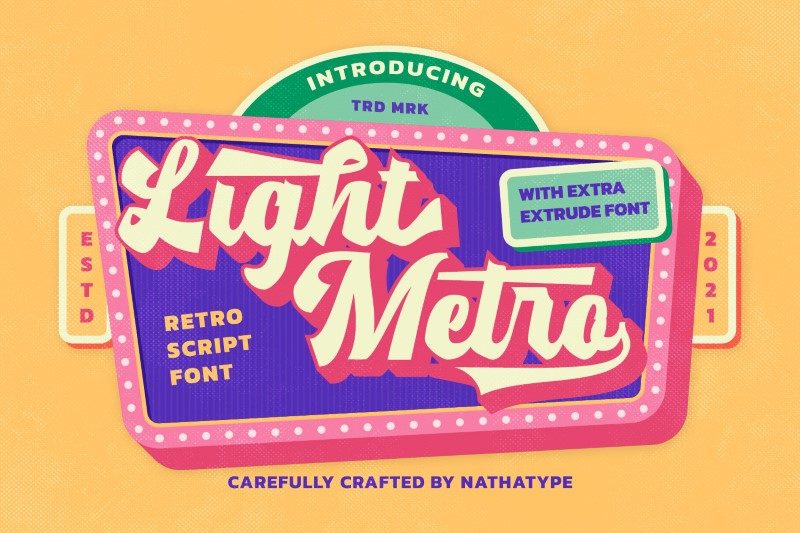
14+ Best Retro Poster Fonts for Eye-Catching Vintage Designs
Somehow, a retro style has an eternal charm in the world of graphic design. Classic colors and the nostalgic atmosphere that it exudes make it a popular choice even in this modern era. Not only from the color and visual composition, but the power of retro style can also be seen through its typography. Utilizing the best retro poster fonts will change the design appearance and make it visually stand out, be full of character, and have a nostalgic feel.
From art events to promotional posters, a retro style brings out a distinctive and attractive visual touch. Additionally, using the right retro font will give an authentic and lasting impression. By enhancing the retro vibe in the design, each piece can exude an elegant and nostalgic classic character. This article serves as a guide to choosing the best retro poster fonts for vintage-style designs.
Best Retro Poster Fonts to Enhance Any Designs: A Recommendation
Each font in this list offers a unique character that strengthens a design’s look and makes it more solid, expressive, and appealing. The following are the best retro poster fonts that present a warm and creative, nostalgic vibe infused with modern touches.
Light Metro
Introducing Light Metro, a lively and energetic font that blends a classic script design with a fresh, modern vibe. This font is one of the best retro poster fonts because of its thick letterforms and firm curves, which give the dynamic and stylish appearance required for a poster to stand out. Light Metro is also complete with the extruded version that creates a striking visual. Combine this font with contrasty colors and the 80s’ shadow effect, and see an authentic and appealing vintage vibe in your posters.
Boldy Vintage
Solid, daring, and full of character, Boldly Vintage is a bold script with dynamic curves, evoking a playful energy and retro spirit. Bold characters combined with gentle curves on each letter create a soft, cheerful, and energetic bubble effect. This font is also equipped with ligatures and stylistic sets that enrich the text’s appearance, allowing each letter to connect naturally and vary in form. For example, the combination of the letters “dy” can transform into a smooth connection that enhances the impression of classic handwriting. This feature makes Boldy Vintage not only aesthetically pleasing but also highly flexible, allowing for the creation of more distinctive and expressive retro poster designs.
Finest Vintage
Next, we have Finest Vintage. It is a font that combines a classic vibe with retro luxury through its bold and powerful outline. Each of its letters has a smooth, neat, and easily readable curve that shows the bubbly character of the vintage era. Additionally, its extruded version adds a three-dimensional effect, making the font’s appearance more prominent and impressive. The font includes features such as ligatures, stylistic alternates, and swashes that make the letters appear more dynamic and elegant. As demonstrated by the preview above, the swashes feature adds long, curved tails to the letter “g,” giving it a luxurious classic touch. Finest Vintage is perfect for designs themed around the best retro poster fonts that want to highlight an elegant, artistic, and captivating vintage style.
Glowing Midnight
Glowing Midnight is a vibrant and expressive retro script font with a dramatic vintage feel. Glowing Midnight has a retro signage style, or old-school advertising, that makes it appear classic yet dynamic. The extruded version makes even medium-sized texts appear easily readable, perfect for posters, branding, and big headlines. The most noticeable elements of this font are its swashes, stylistic sets, and alternates for letterform variations, which add versatility and creativity to any design.
Hello Youthen
Hello Youthen gives off a youthful energy with its playful letterforms, making it perfect for being on this list of the best retro poster fonts. This retro font has bold letterings with rounded shapes and smooth curves, exuding a friendly and energetic vibe. Some of the letters have swashes or curvy tails that add visual beauty. Meanwhile, its ligatures strengthen the decorative elements and highlight the artistic feel. One more thing about Hello Youthen is that its alternates, such as demonstrated in the letters “o” and “n,” offer letter variations that make any design look more expressive and appealing.
Medyan Script
If you are looking for fonts with smooth touches, Medyan Script is the perfect choice for creative, stylish, and eye-catching designs. With bold, round, and decorative letterforms, like you can see in the letter “M” that has a curvy tail, this font feels playful and distinctive. You can also see that the letter “y” has a dramatic long tail, creating a design that looks even more enhanced. The ligatures of Medyan Script are smoothly and harmoniously designed, making it perfect to be on this list of best retro poster fonts.
Morning vintage
Urban designs and graphics inspire Morning Vintage’s unique handwriting style, which combines classic retro and modern elements. This font is ideal for various creative tasks, including social media branding, fashion design, quotes, and more. Morning Vintage features stylistic sets, such as the letter “g,” to give any artwork a vibrant, original, and personal vibe. Meanwhile, the swashes feature long, curved tail strokes that provide an exquisite touch while also reinforcing the retro style of handwriting.